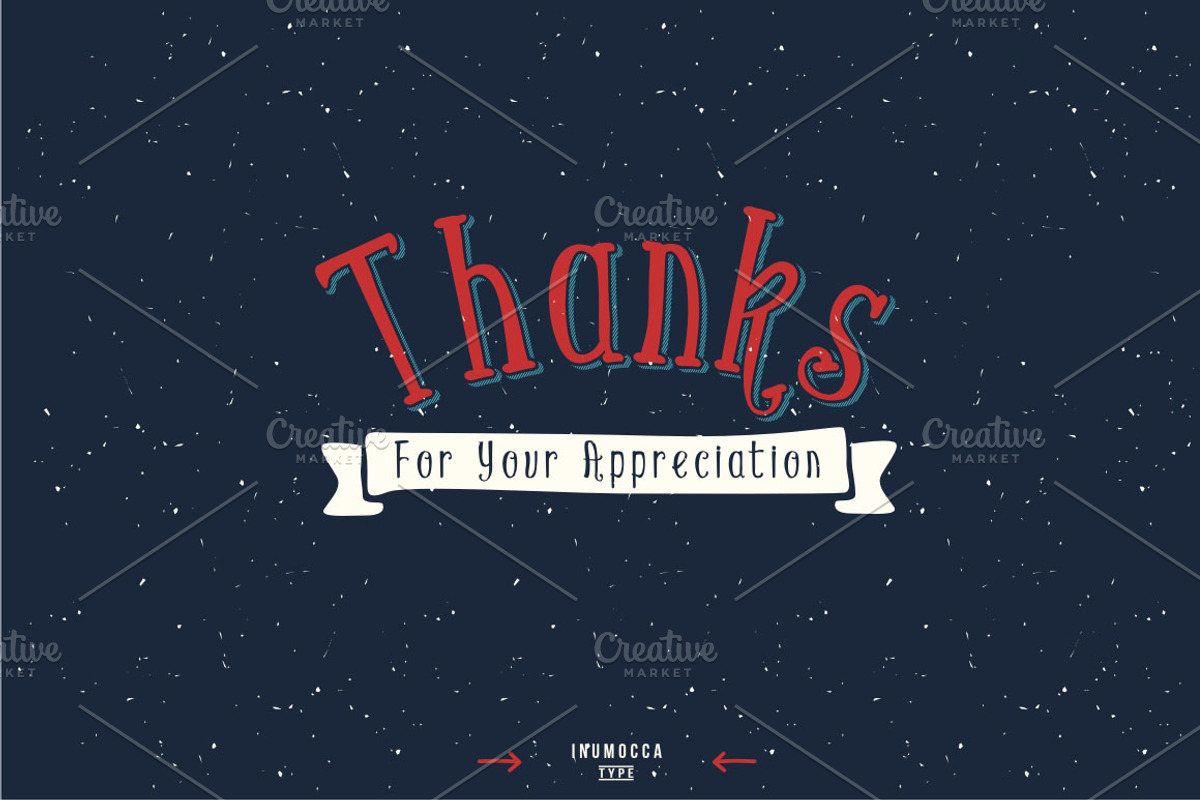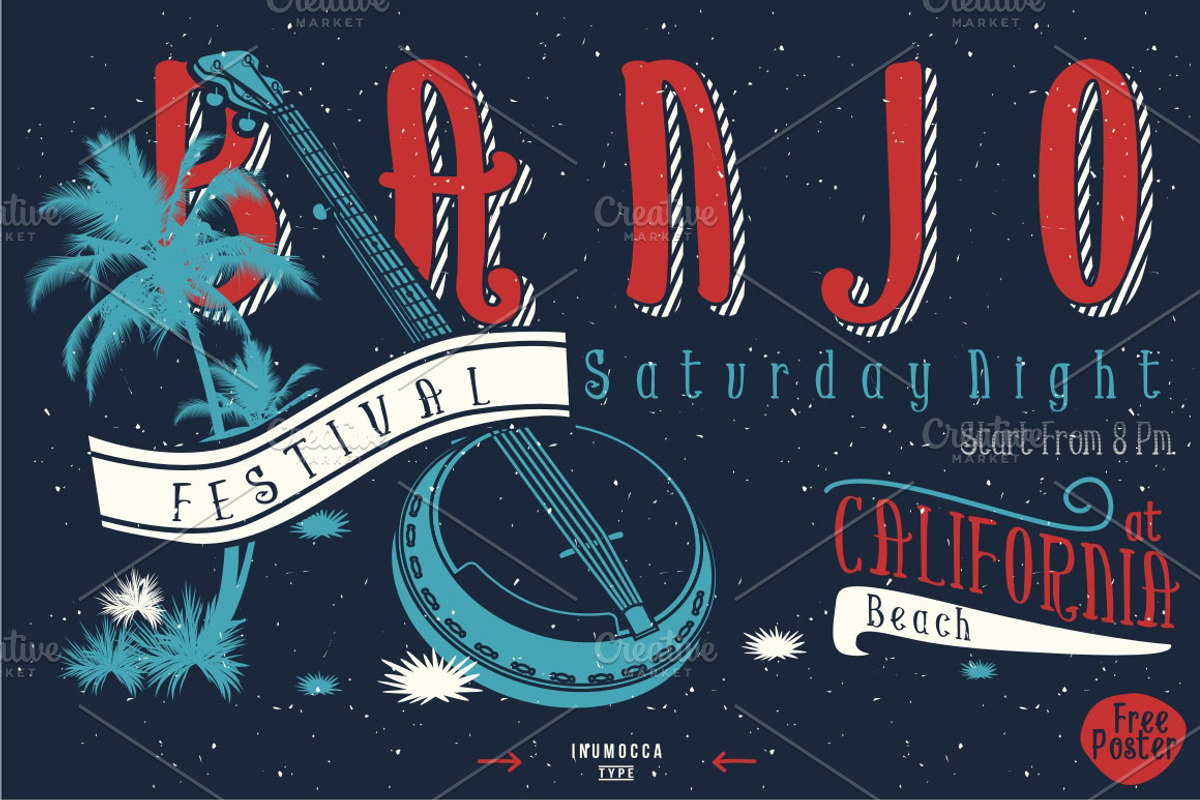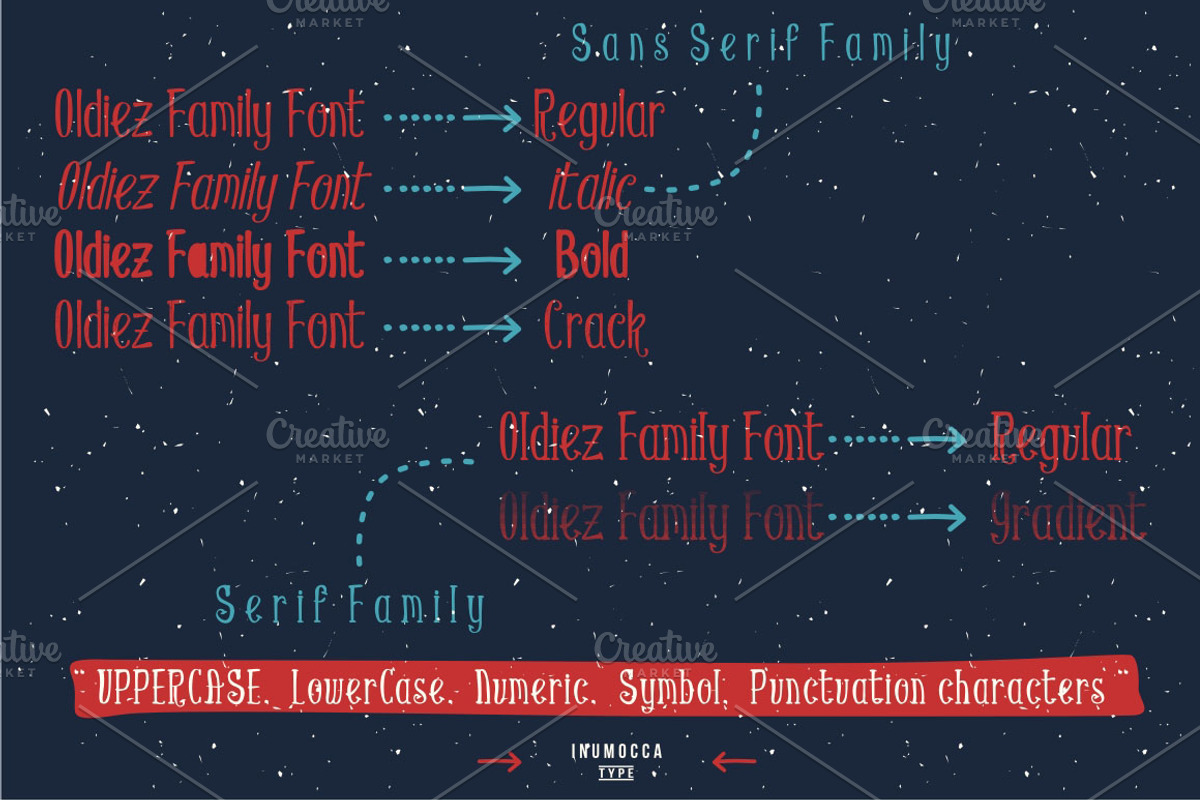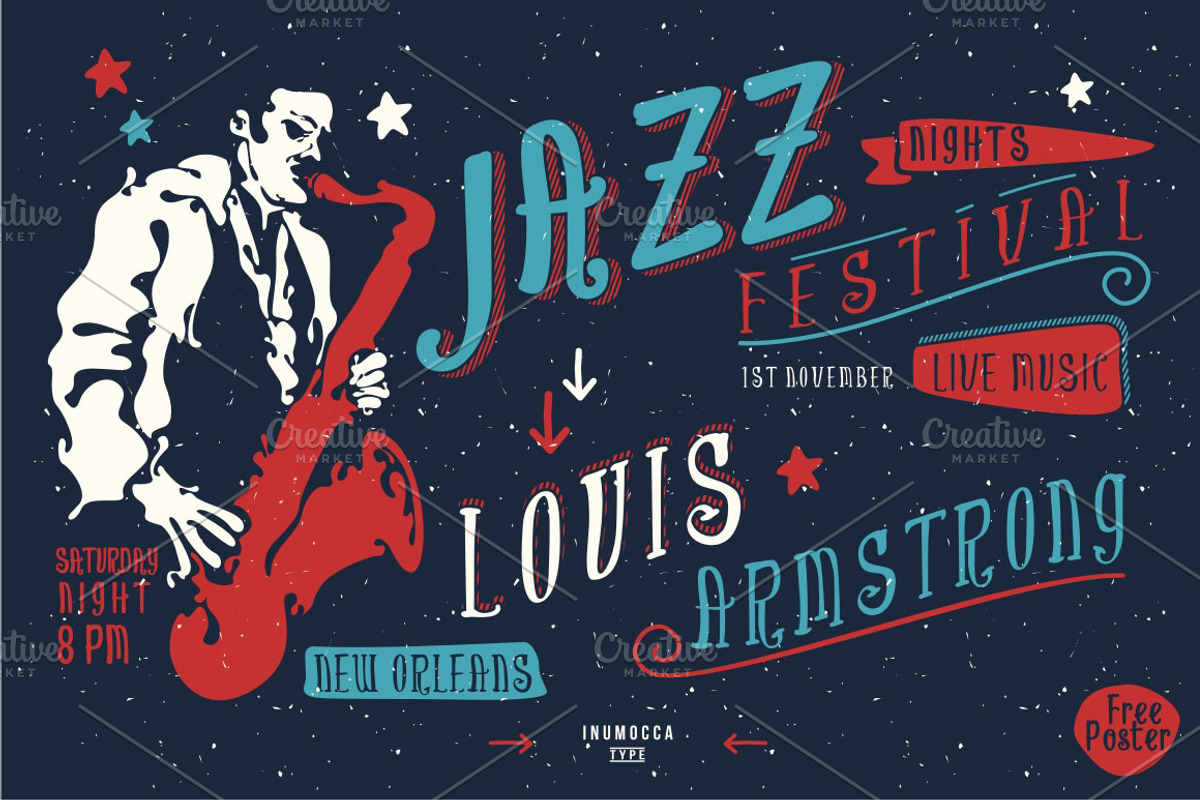
Oldiez Font Family + bonus
Oldiez Font Family + bonus by inumoccatype is a font selected for branding, posters, packaging, typography.
- 2015 Oldiez Font Family its handmade lettering by me its really great font for your band invitation, label, clothing company, vintage stuff,
Why Oldiez Font Family + bonus is worth a look
Oldiez Font Family + bonus by inumoccatype fits naturally into Branding, posters, packaging, typography.